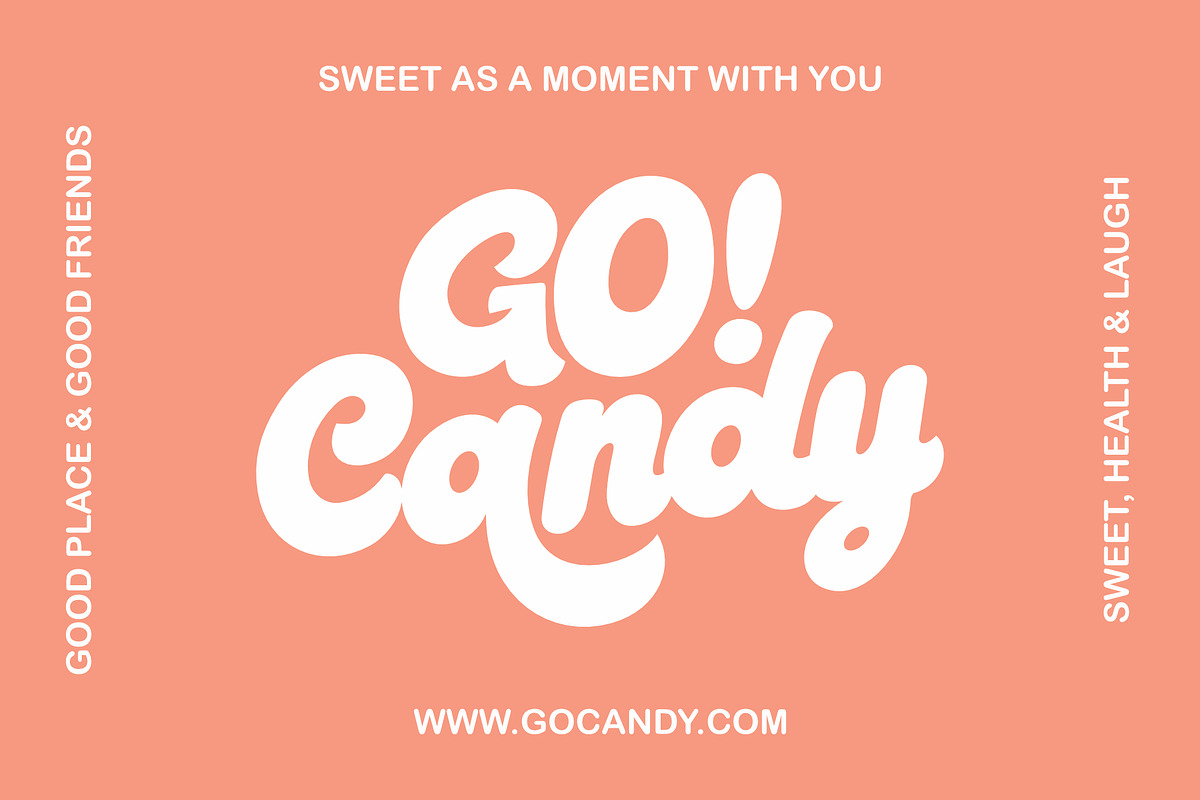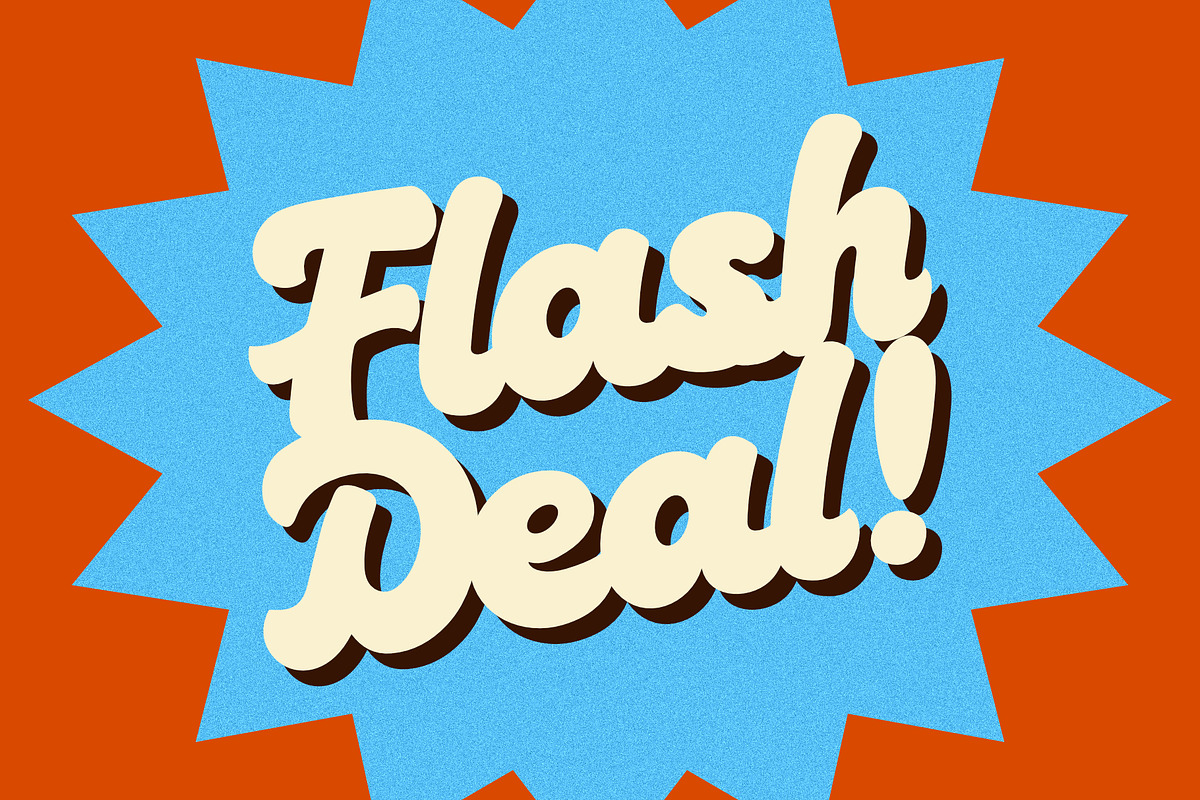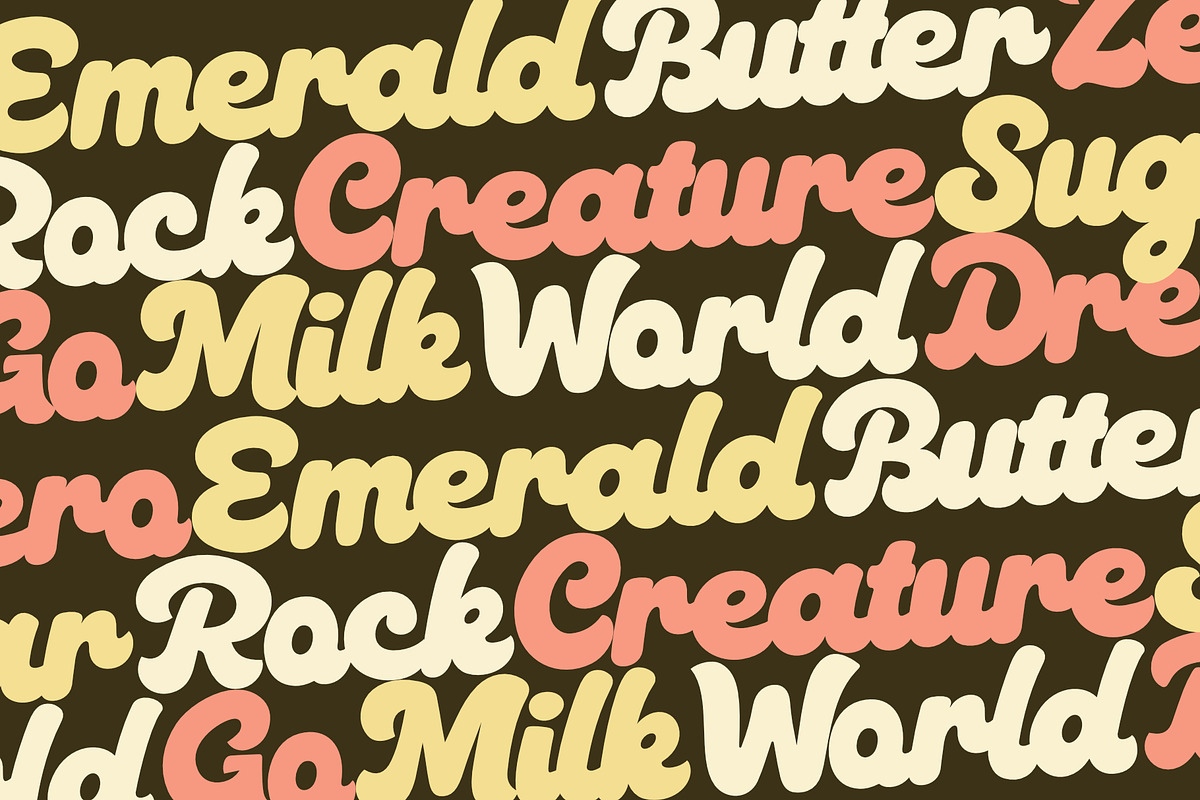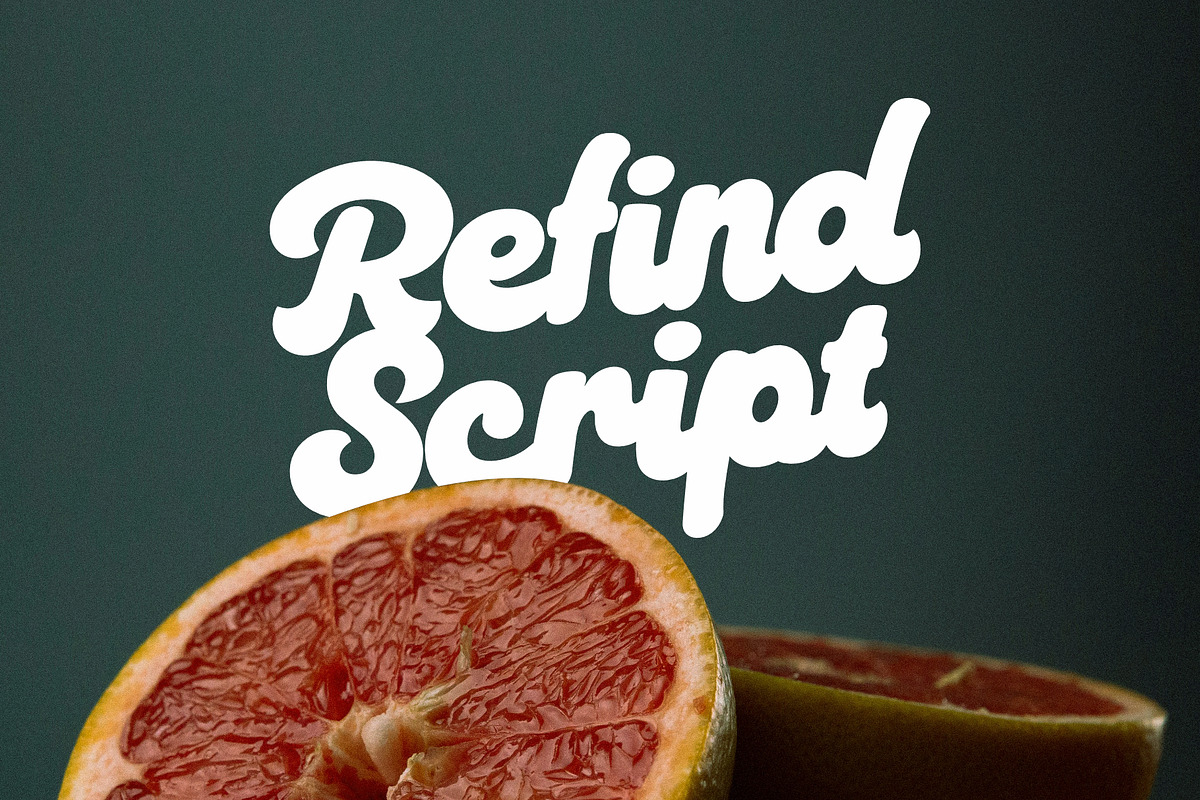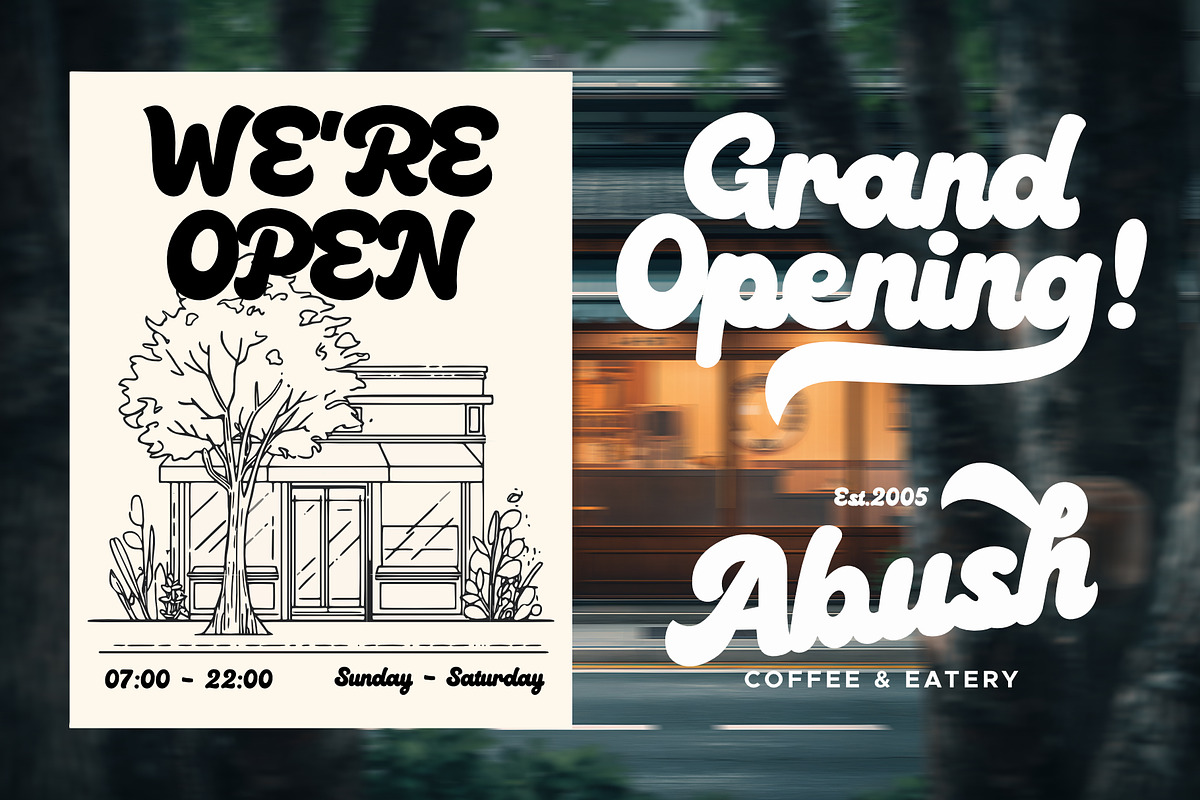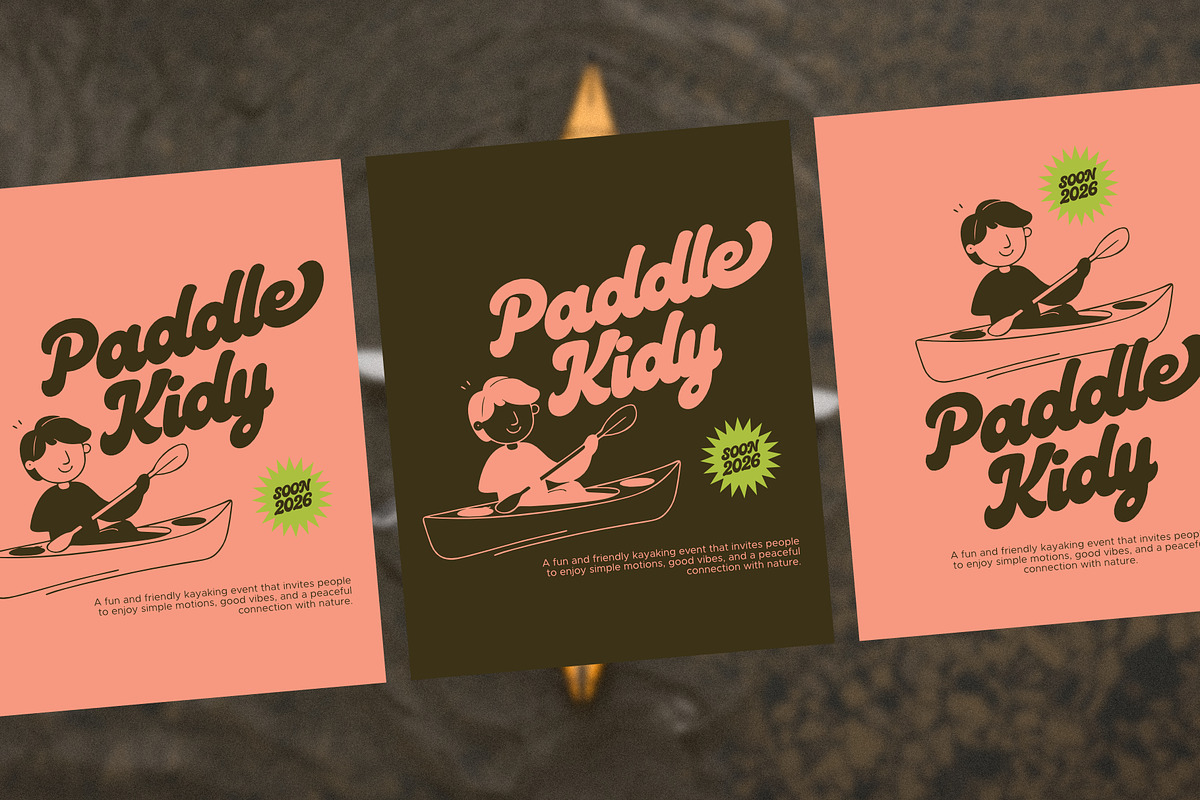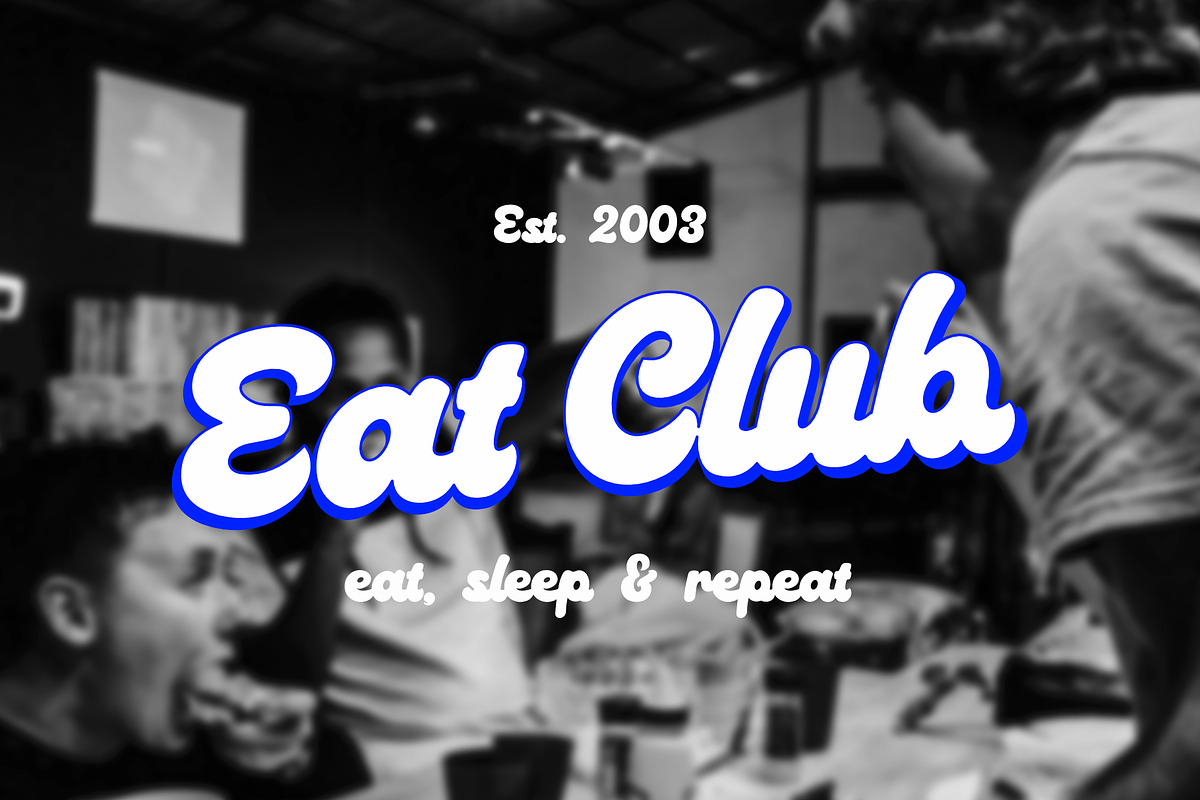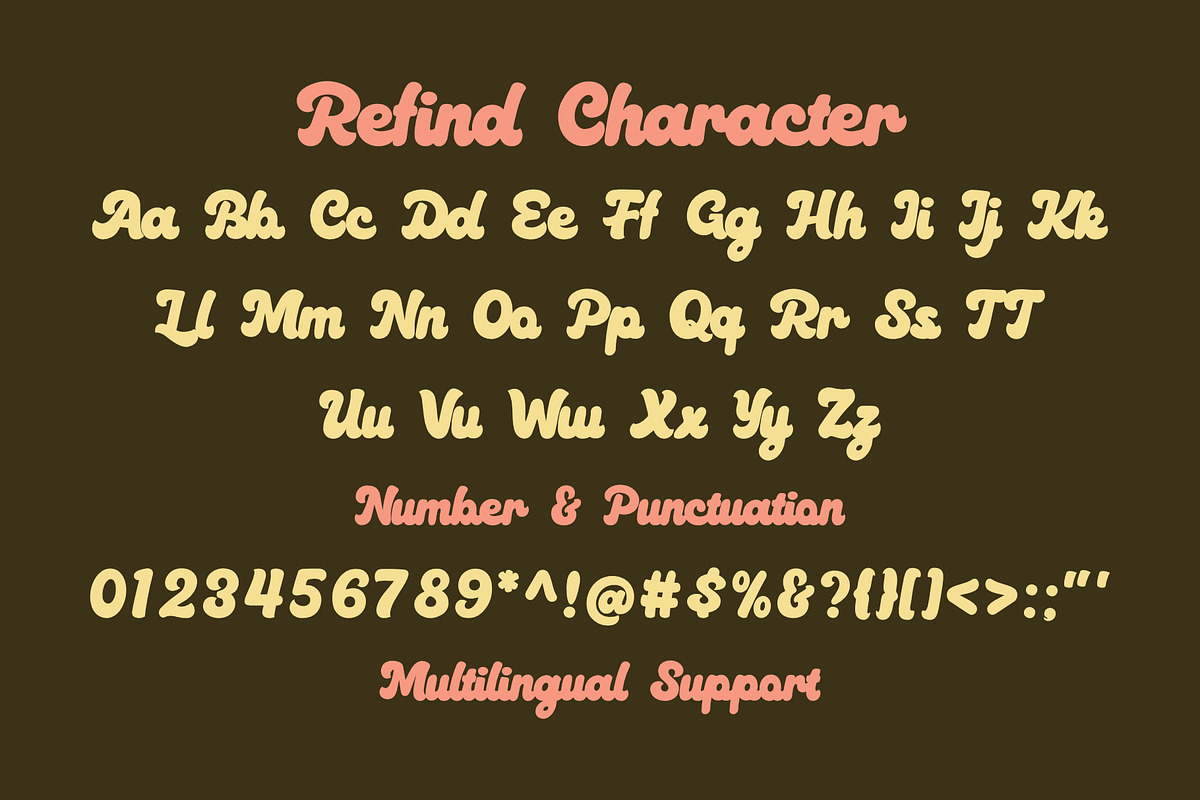
Refind Script
Refind Script is a bold, playful, and retro-inspired script typeface designed to bring warmth, personality, and charm to your designs. With its soft curves, thick strokes, and smooth connections, this font is perfect for creating eye-catching headlines and friendly brand identities.
Inspired by vintage signage, food packaging, and cheerful branding, Retind Script works beautifully across a wide range of creative projects—from logos and posters to packaging, social media, and editorial layouts.
This typeface delivers a fun yet confident tone, making it ideal for brands that want to feel approachable, joyful, and memorable.
- Logo & brand identity
- Posters & event flyers
- Food & beverage branding
- Packaging design
- Social media graphics
- Merchandise & apparel
- Cafe, kids, and lifestyle brands
Give your design a retro soul with a modern, clean finish using Retind Script.